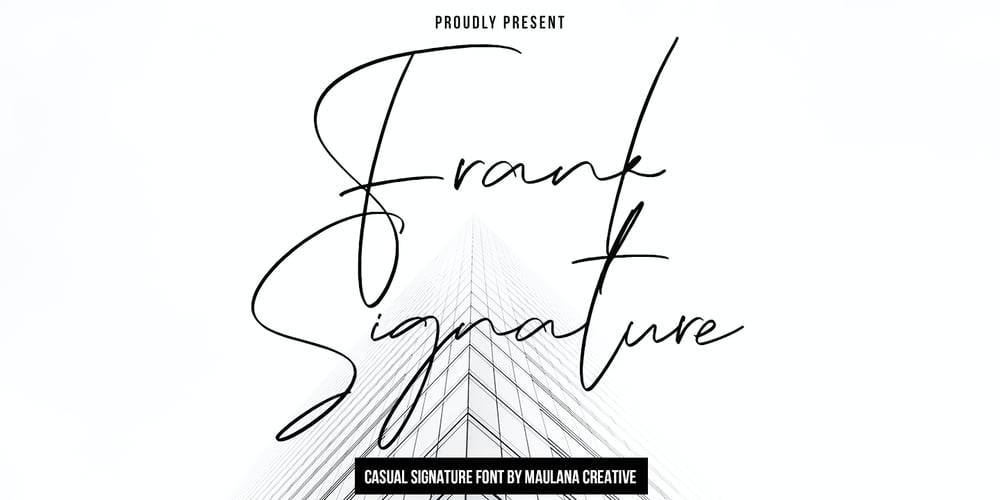
Frank Signature Font Family was designed by Gilang Maulana and published by Maulana Creative. Frank Signature contains 1 styles and family package options. Frank Casual Signature Font is a modern feminine script font. With regular contrast stroke, fun character with some of ligatures. To give you an extra creative work. Frank Casual Signature Font support multilingual more than 100+ language. This font is good for logo design, Social media, Movie Titles, Books Titles, a short text even a long text letter and good for your secondary text font with sans or serif. Make a stunning work with Frank Casual Signature Font.Cheers,Maulana Creative